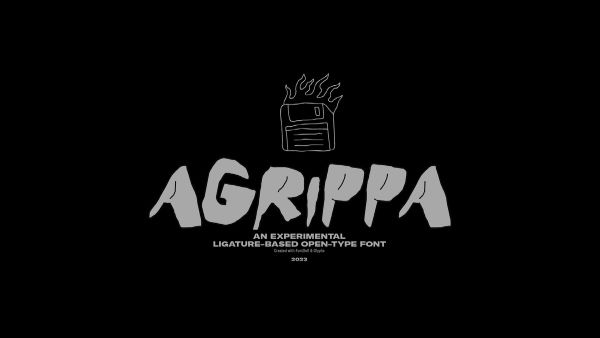
Agrippa Font
Agrippa by Dimitra Makraki is a free experimental display font rooted in one of electronic literature’s most provocative objects — William Gibson’s 1992 artist’s book Agrippa (A Book of the Dead), a poem programmed to encrypt itself after a single reading, its pages treated to fade on exposure to light. Makraki’s typeface transforms this concept into a typographic experience: when the user types Gibson’s poem, the text dissolves into a ligature, enacting the disappearance it describes. Beyond its conceptual dimension, Agrippa is a genuinely distinctive display typeface with real typographic character. Available free with a standard commercial license.